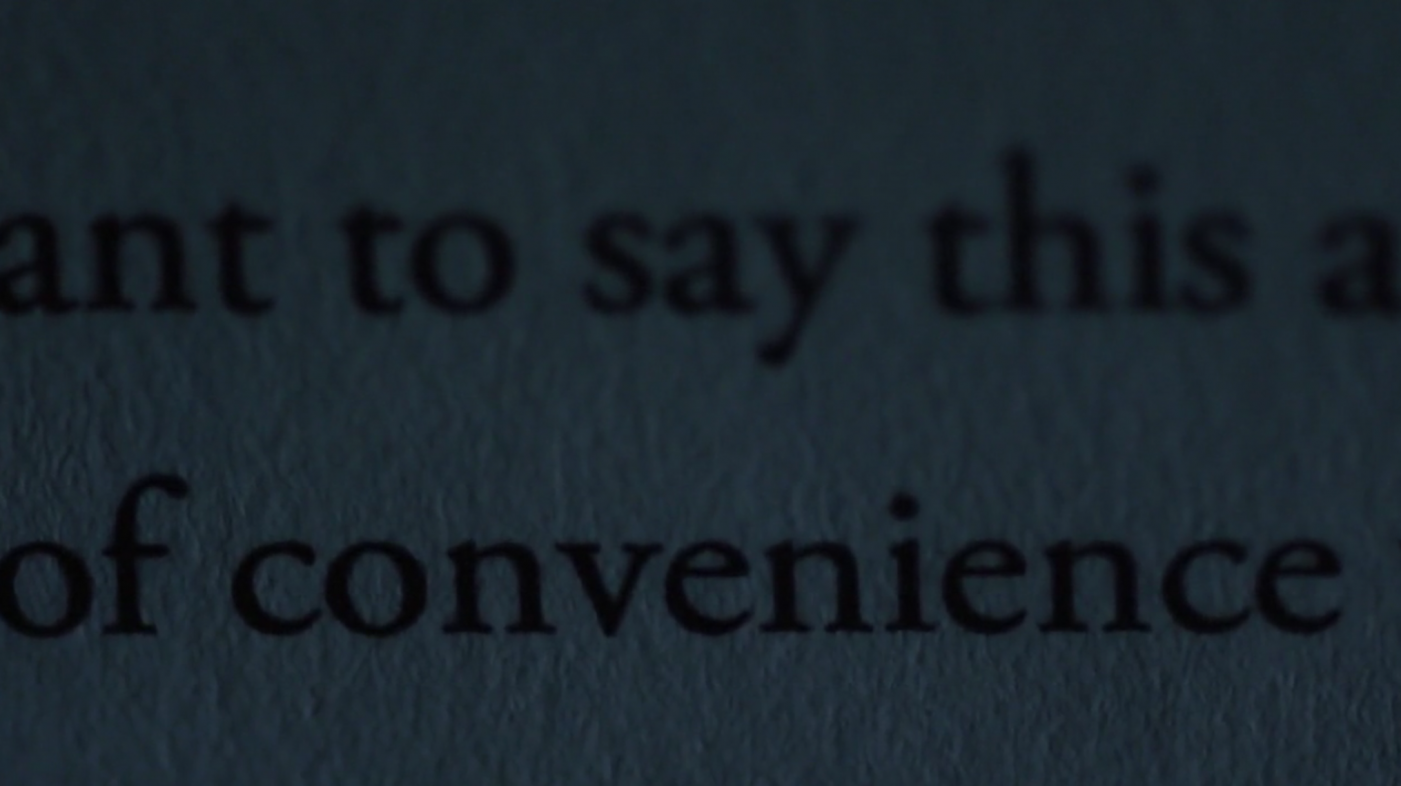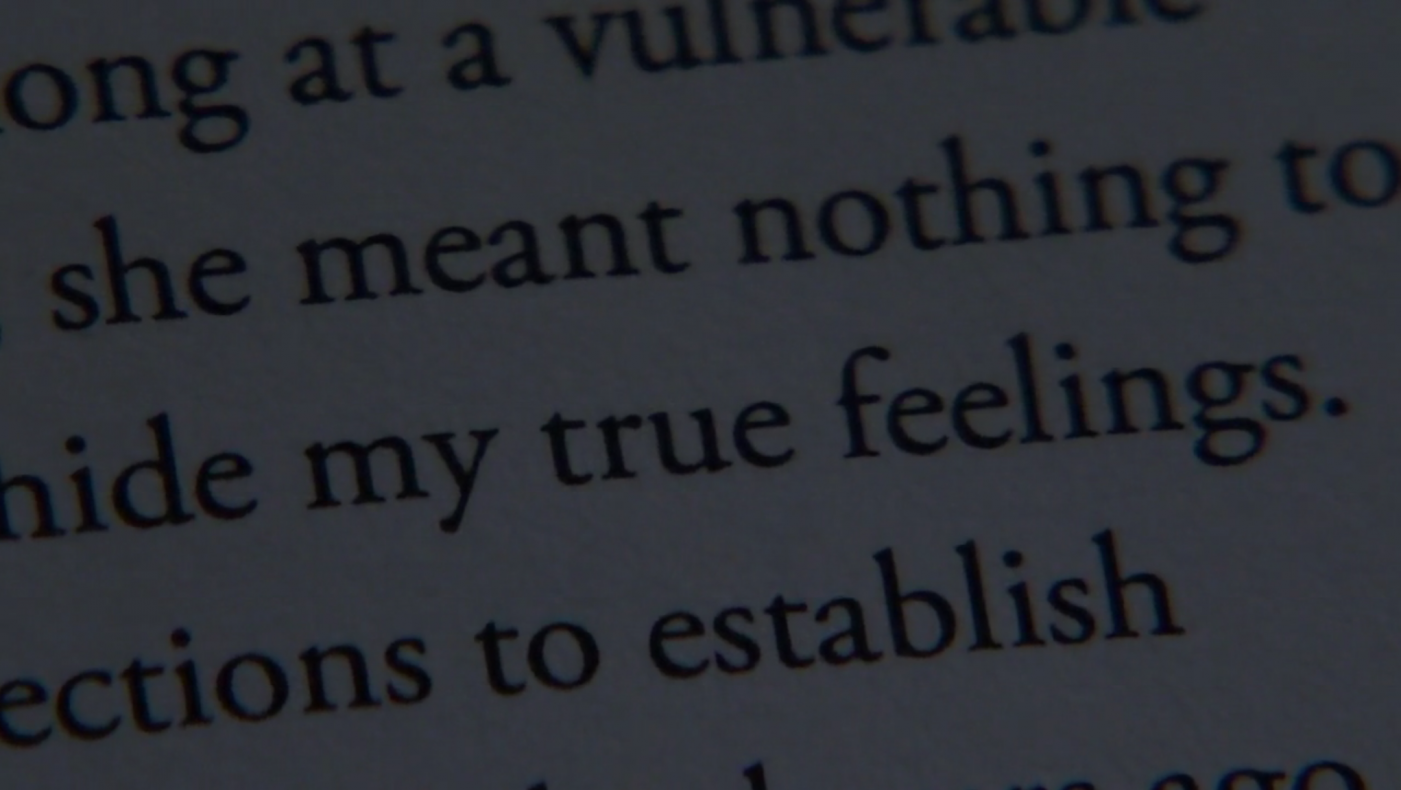
HOMELAND S07E07: Font used in Resignation letter
Hi, which font was used for Resignation of David Wellington in the Episode S07 E07 in 41:30?
Tried to find the fonts via identifont. Fonts like Times, Albertina, Dante, etc aren't perfect matches.
The lower f is kind of tricky. The bar is double-sided but not even and also having a straigt side (right) and a "serif"-side (left).
Does anyone know the font?